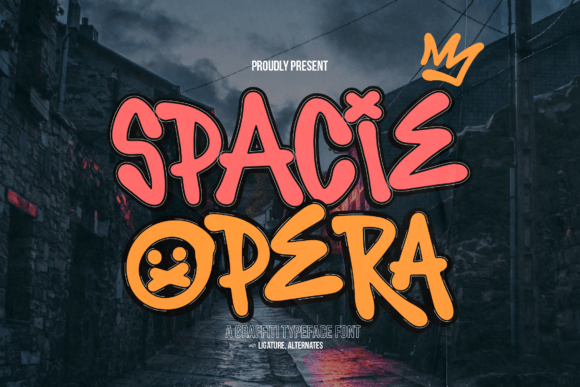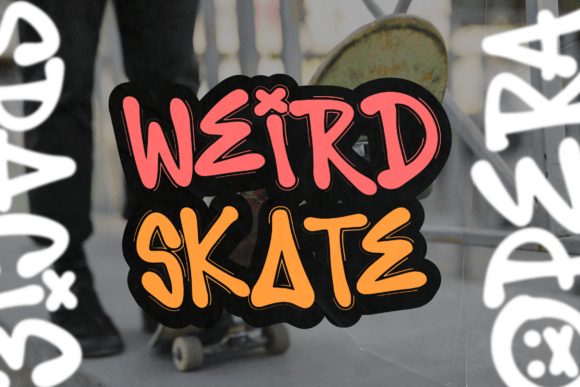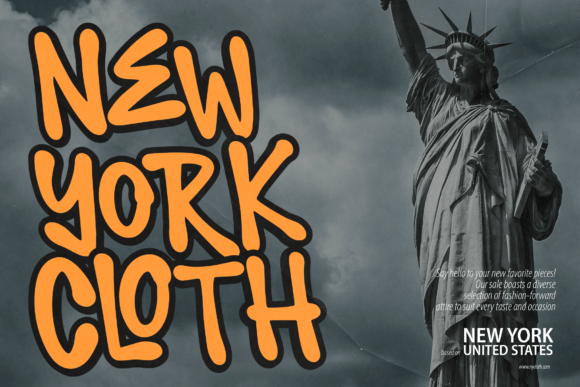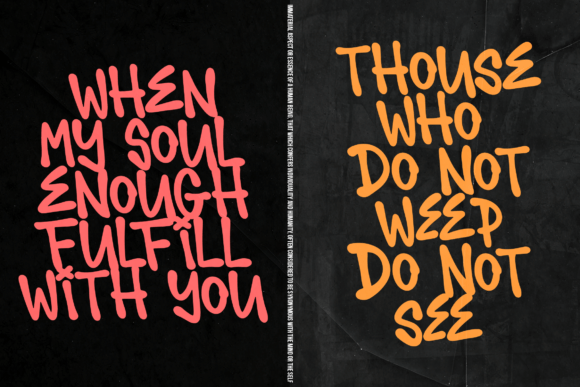
Spacie Opera Font
Spacie Opera is a lively graffiti font that has a playful and urban feel. Its bold letters are filled with fun shapes and designs, making it great for posters, street art, or anything that needs a cool, modern touch!